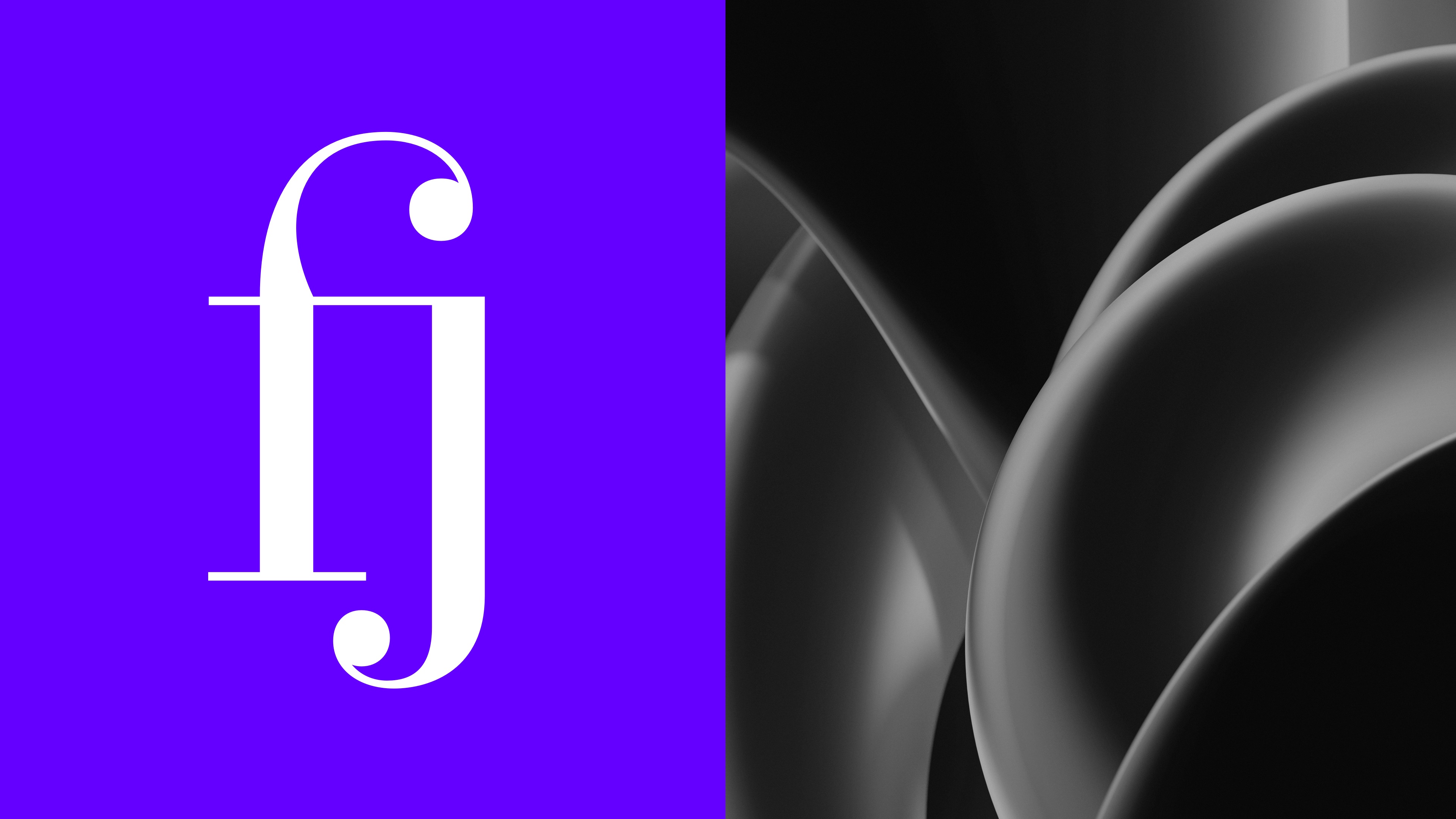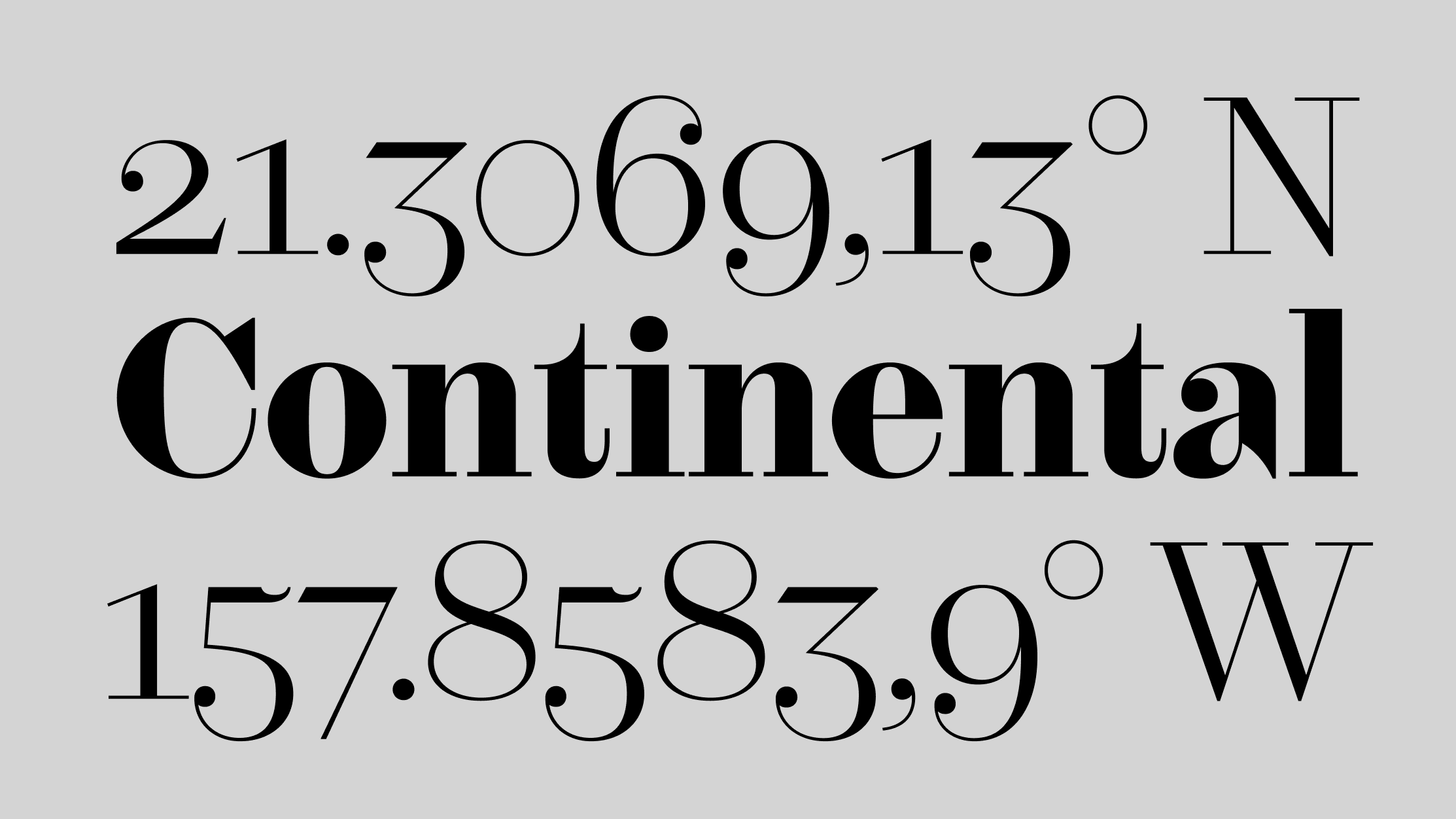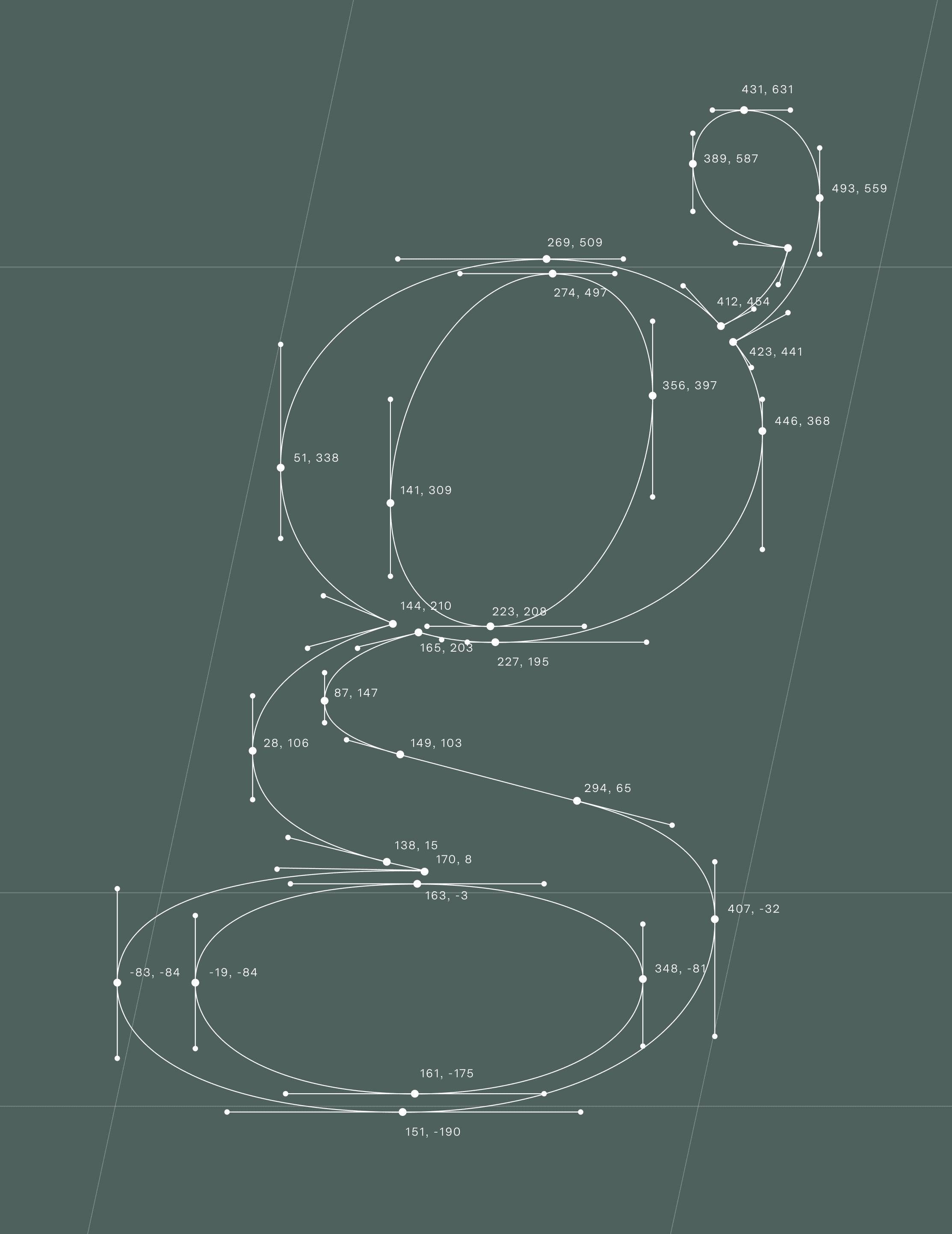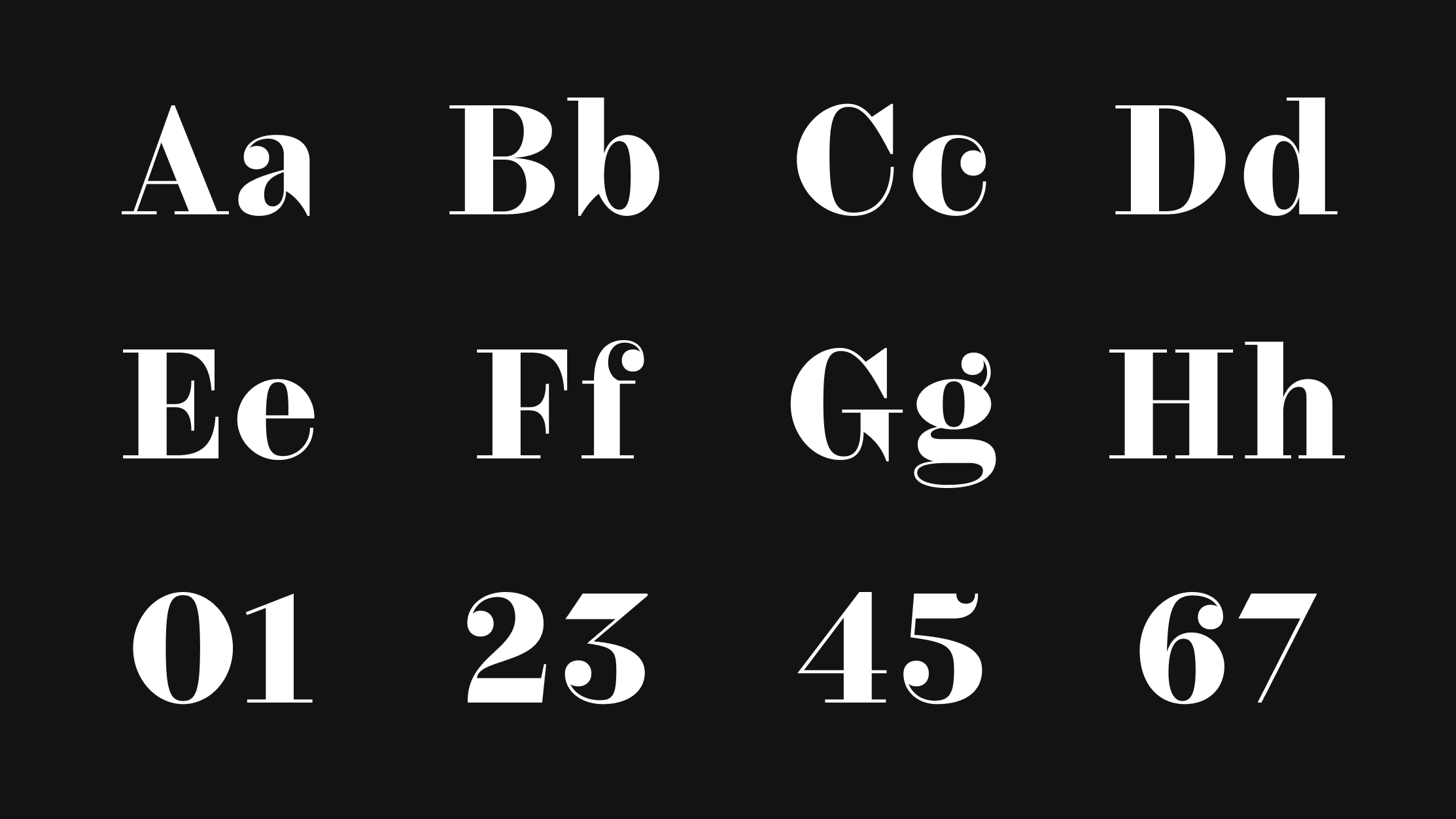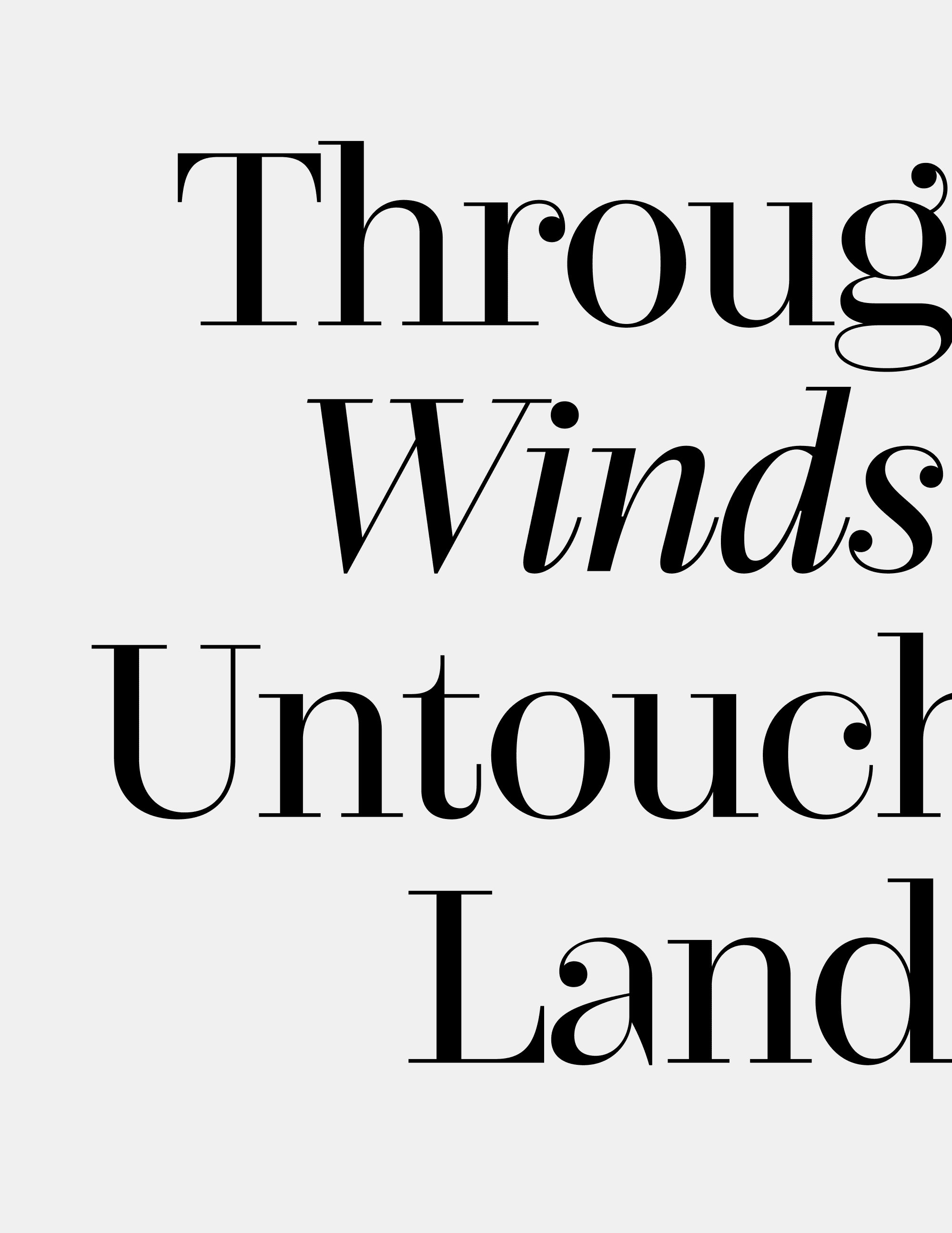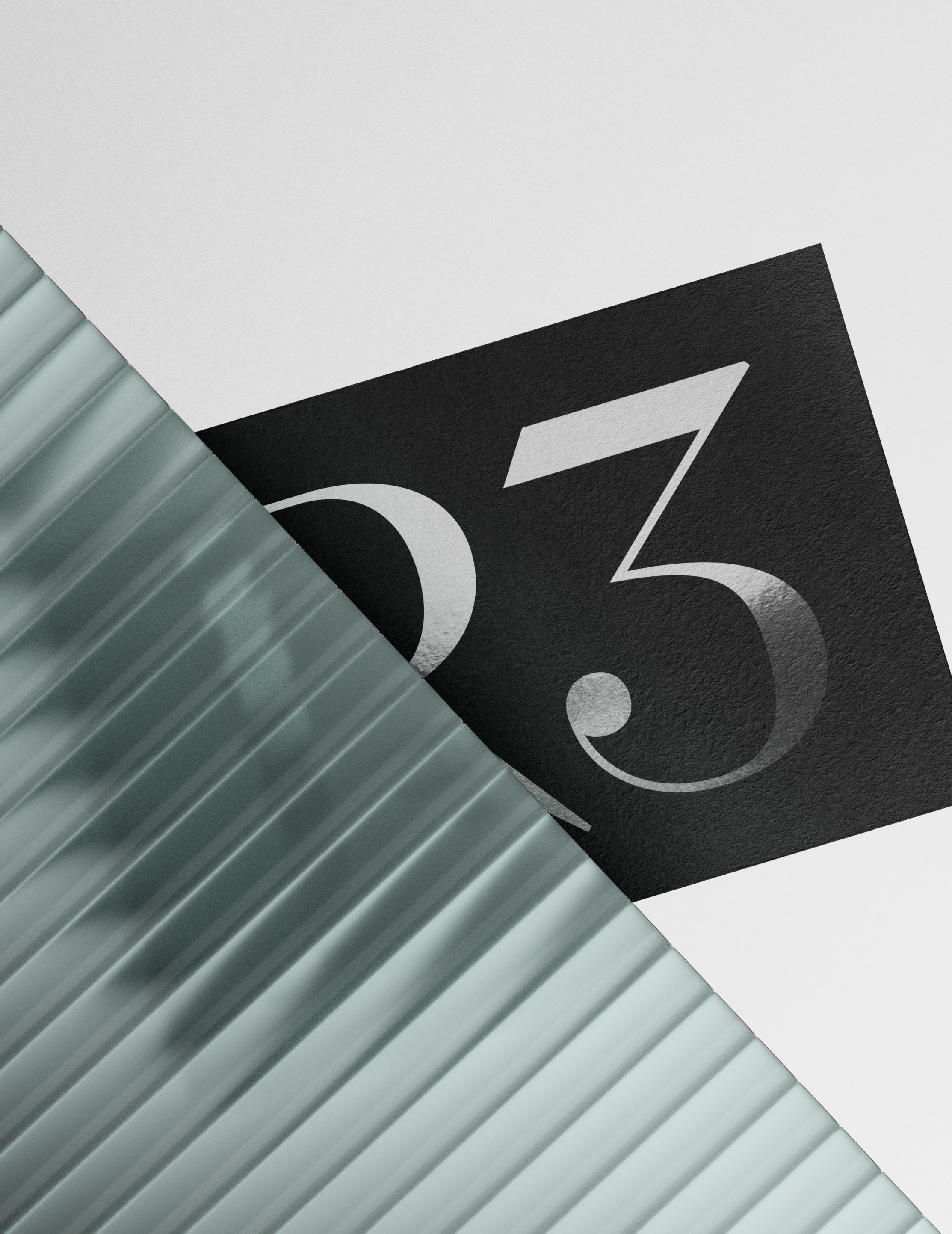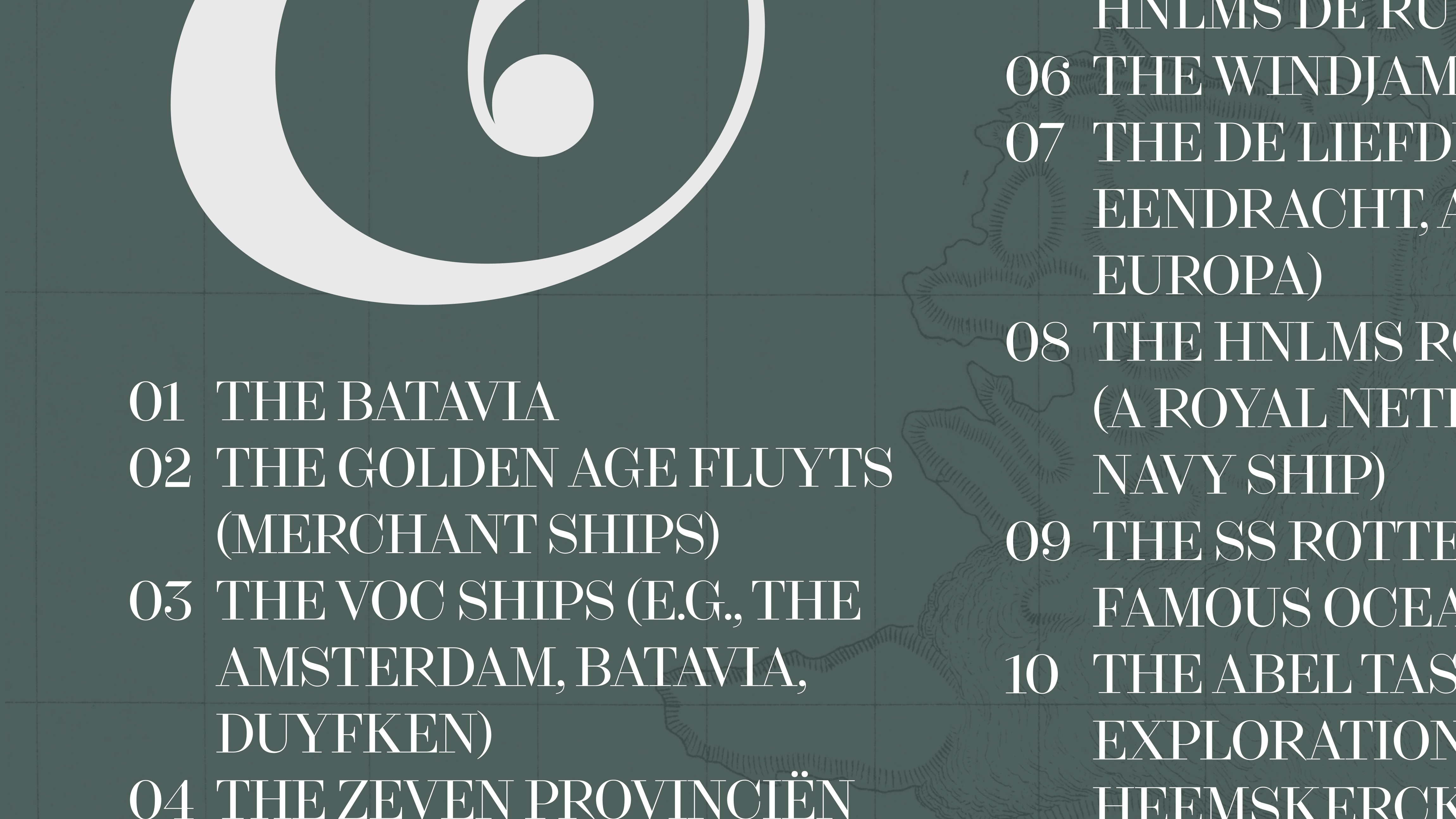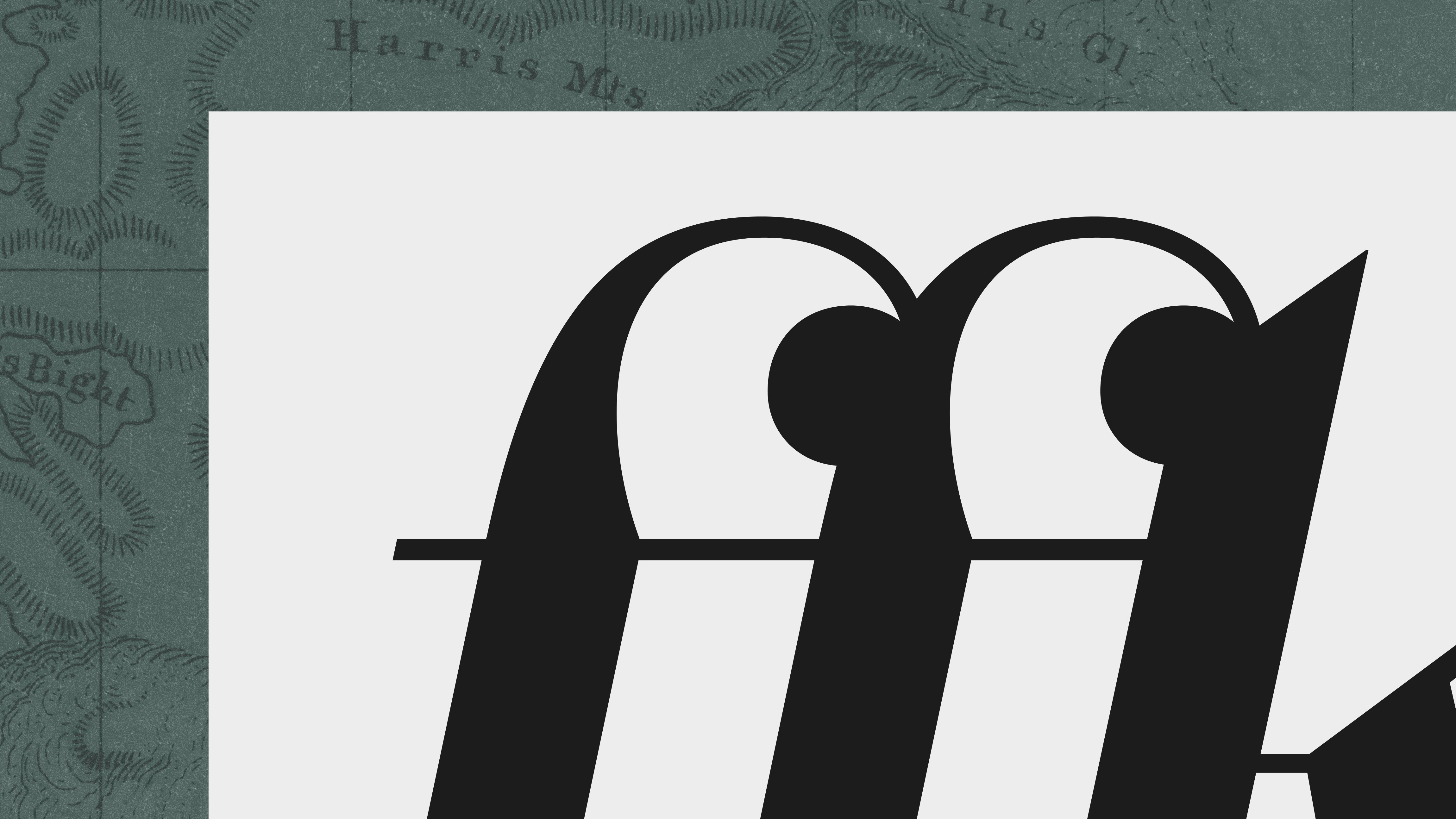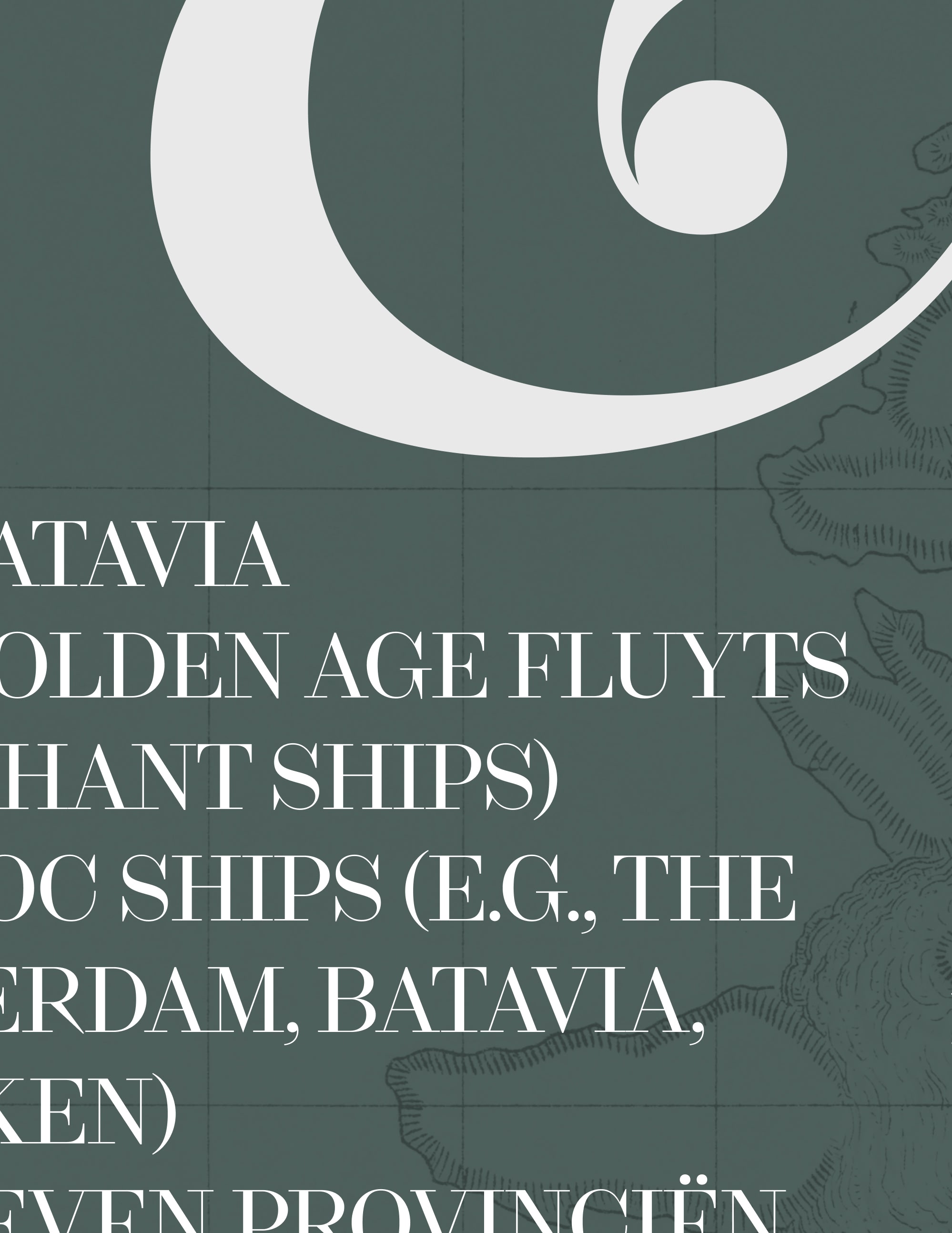
Kreol Display adapts the expressive forms of 19th-century type design for large-scale typography. Defined by heightened contrast, refined details, and balanced proportions, it is designed for display use, editorial headlines, and identities. Kreol is also available in Kreol Text and Kreol Headline.